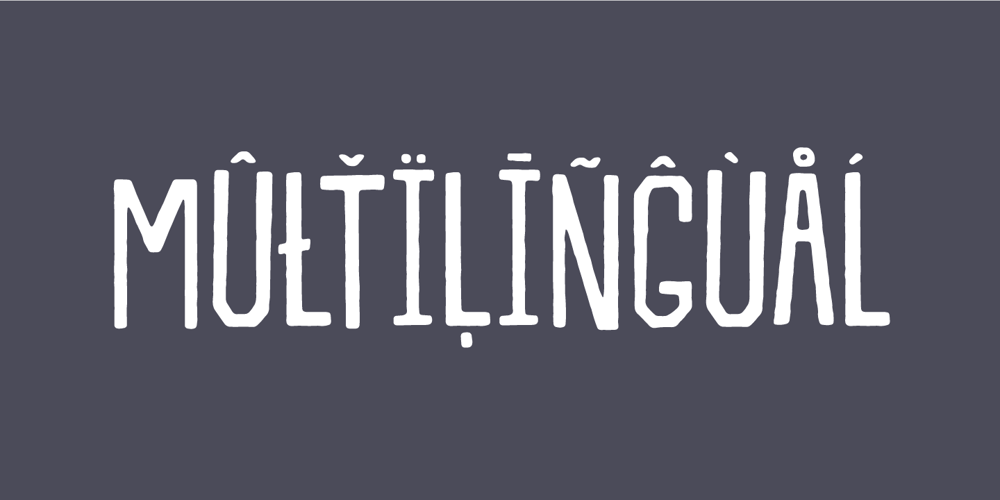
Jolly Beat Font Family was designed by Jakob Fischer and published by PizzaDude.dk. Jolly Beat contains 1 styles and family package options. Is it monospaced? Is it a numberplate font? What’s up with all the different letters? The questions about Jolly Beat are many, but I can tell you this: No sharp edges, multilingual support, contextual alternates (5 different versions of each letter, that automatically cycles as you type!) and a good handful of unpredictable letters!